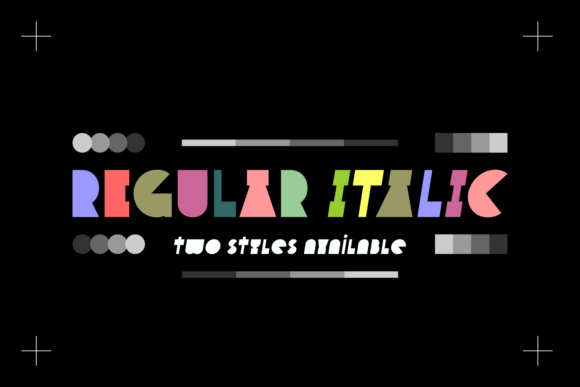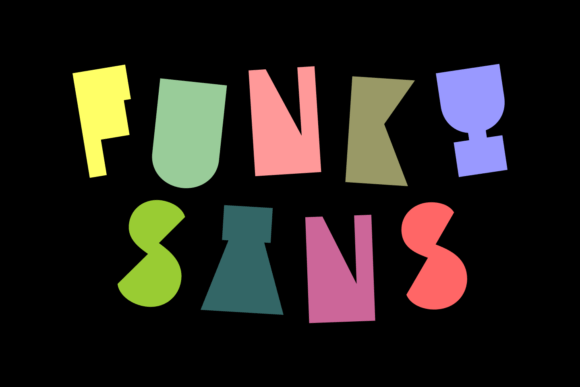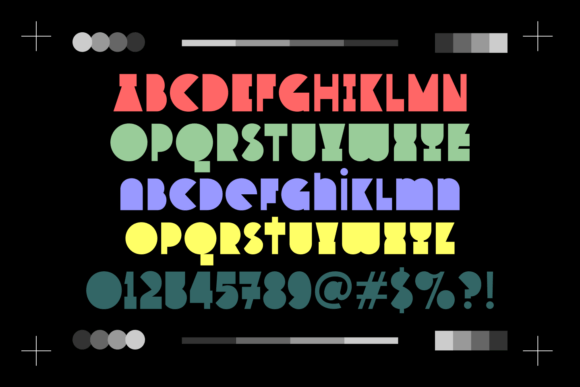
Introduction to Ohanlon Bold Font
Ohanlon Bold is a fun and cool display font.
Its modern and funky appearance makes it suitable for a wide spectrum of applications .
Key Features of Ohanlon Bold Font